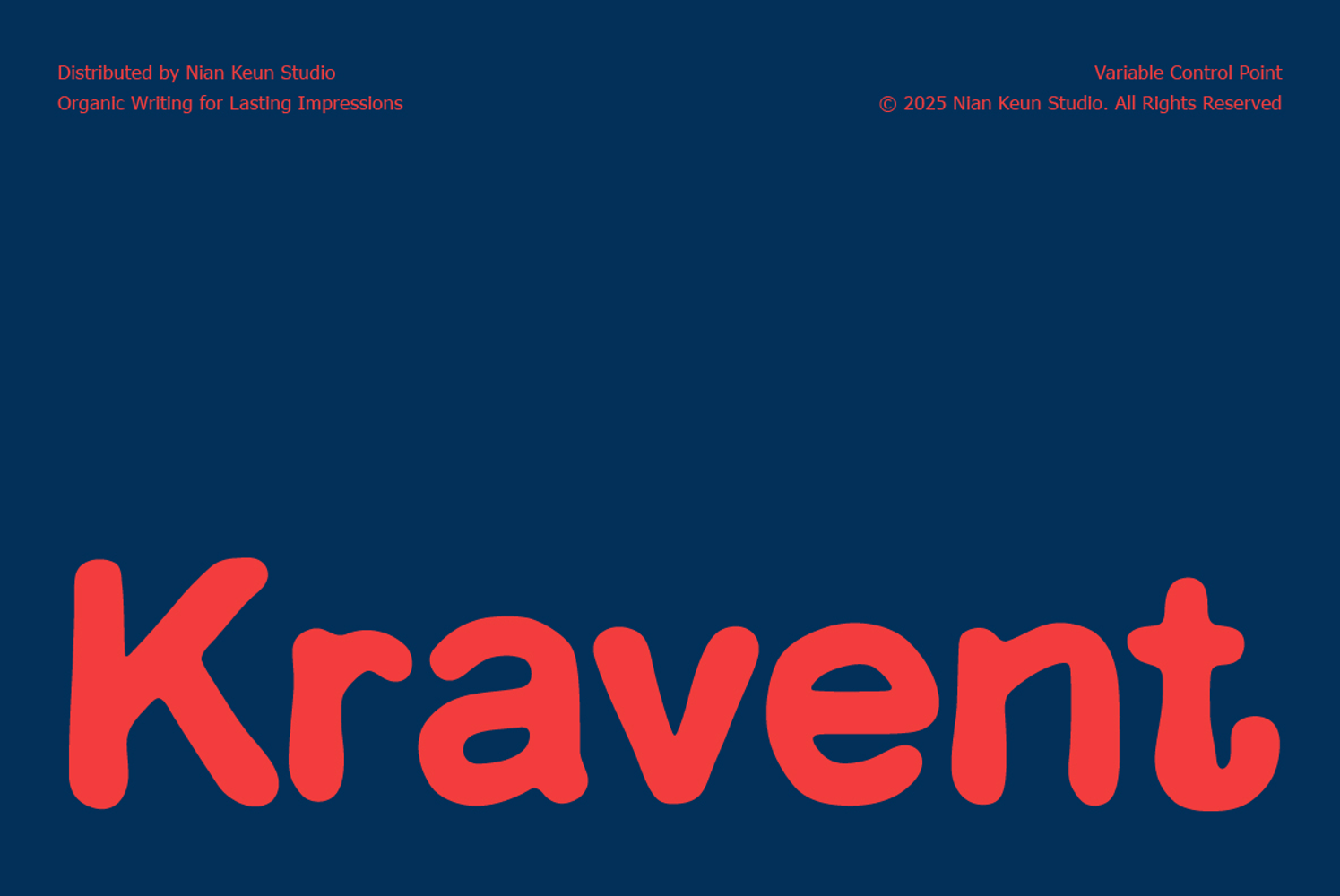
Kravent - Organic Soft Rounded Display
Kravent is an organic display typeface featuring soft, rounded, and playful letterforms. Inspired by natural handmade writing, Kravent delivers a friendly and expressive character in every word. It is perfectly suited for modern branding, packaging design, creative posters, editorial layouts, children’s designs, illustrations, and social media content.
Each character is crafted with smooth curvature and stable visual proportions, making it ideal for headlines and bold graphic elements. With its unique aesthetic somewhere between bubble, rounded, and organic Kravent brings a strong, memorable personality to any creative project.
Perfect for lifestyle brands, food & beverage products, children’s goods, stationery, educational apps, content creators, and a wide range of creative uses.
Perfect for
• Organic soft display style
• Soft, rounded, and playful letter shapes
• Unique appearance while maintaining clear readability
• Great for branding, packaging, posters, creative UI, and illustrations